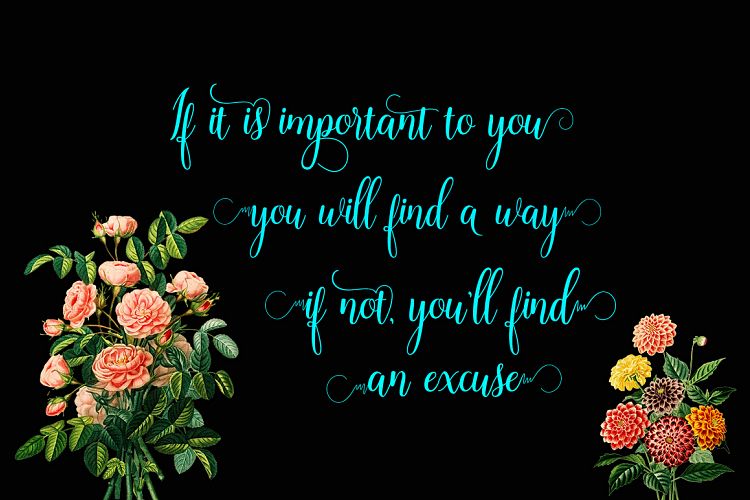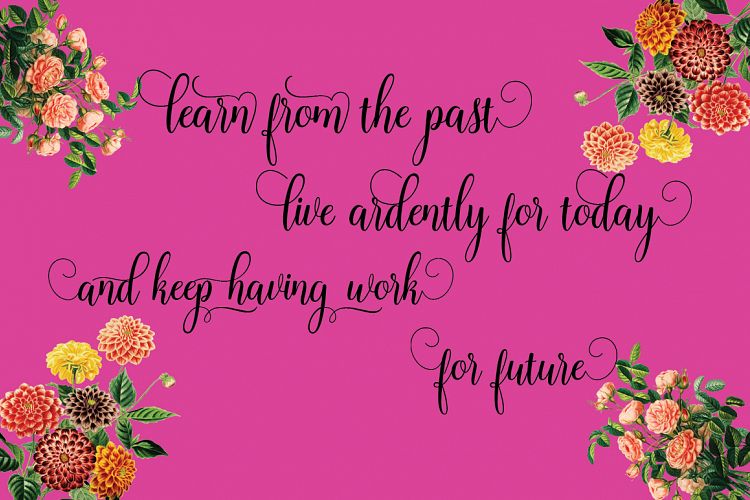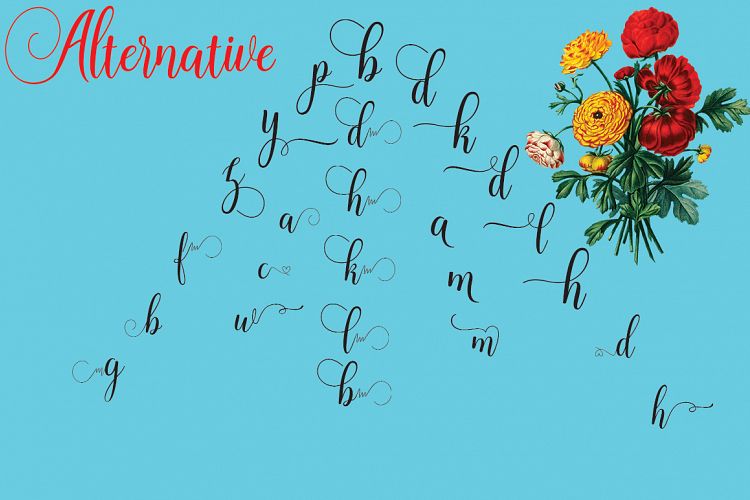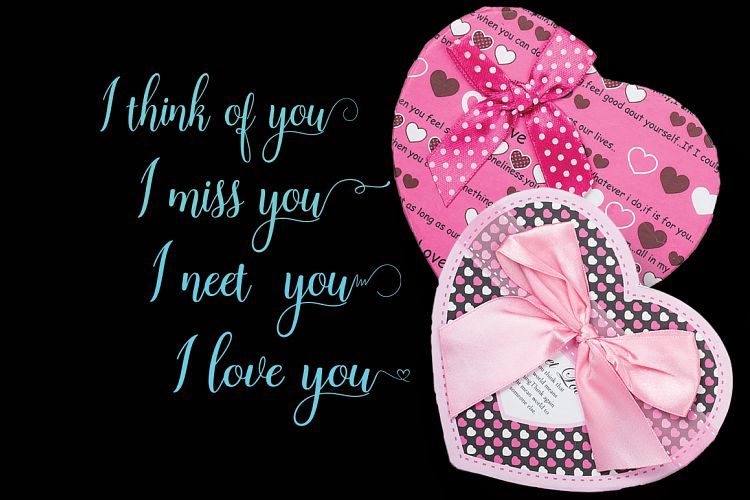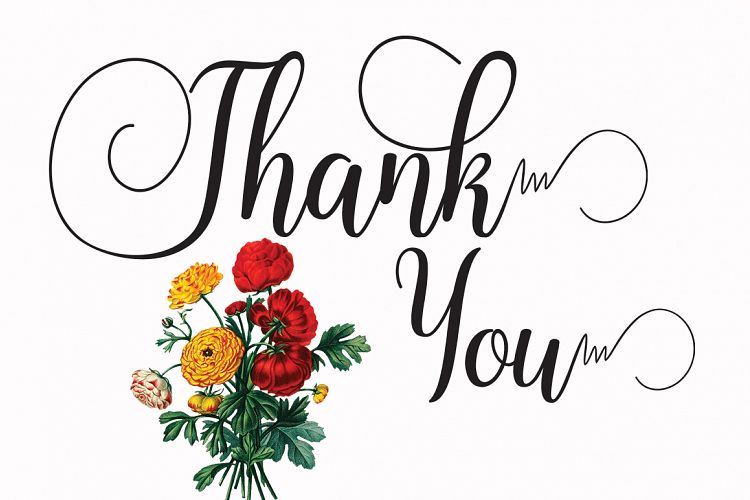
Introducing Demanding Font: Elevate Your Designs with Elegance and Versatility
In the world of typography, a font can make or break a design. For designers and crafters seeking to add a touch of sophistication and style to their projects, Demanding Font is an exceptional choice. Created by Naldy Studio, Demanding is a stunning script font that embodies elegance, versatility, and creativity. In this article, we’ll delve into the features and benefits of Demanding Font, exploring how it can elevate your designs and streamline your creative process.
A Smooth and Flowing Script Font
Demanding Font is a beautifully crafted script font, characterized by its smooth lines and varying baseline. This unique feature gives the letters a flowing motion, creating a sense of movement and fluidity. The result is a font that exudes elegance and sophistication, making it perfect for a wide range of design applications.
One of the standout features of Demanding Font is its incredible versatility. This font can be used for both formal and informal projects, making it an excellent addition to any designer’s toolkit. Whether you’re working on a luxury brand campaign, a wedding invitation, or a digital blog, Demanding Font adapts seamlessly to any design style.
In addition to its adaptability, Demanding Font also performs exceptionally well in both print and digital formats. From business cards and brochures to website headers and social media graphics, this font maintains its clarity and impact across various mediums.
Extensive Glyphs and Alternate Characters
Demanding Font boasts an impressive 386+ glyphs, offering a vast range of creative possibilities. This extensive character set includes:
- 230 alternate characters, allowing for diverse styling options
- Initial and terminal letters for added customization
- Ligatures and swashes to enhance text flow and aesthetics
- Multilingual support, ensuring compatibility with various languages
This wealth of glyphs and alternate characters empowers designers to experiment with different looks and feels, ensuring their designs stand out from the crowd.
- Ease of use: With its clear and legible design, Demanding Font is easy to read and work with, even for large blocks of text.
- Customization: The extensive glyphs and alternate characters provide endless opportunities for creative expression and customization.
- Consistency: The font’s versatility ensures consistency across various design projects and applications.